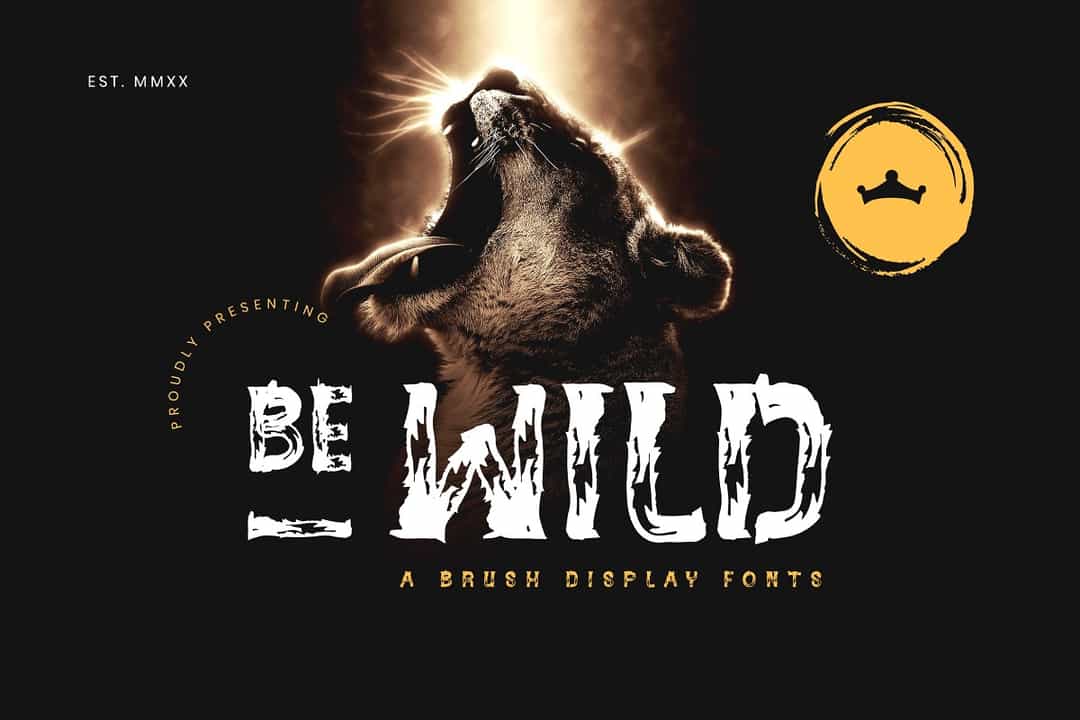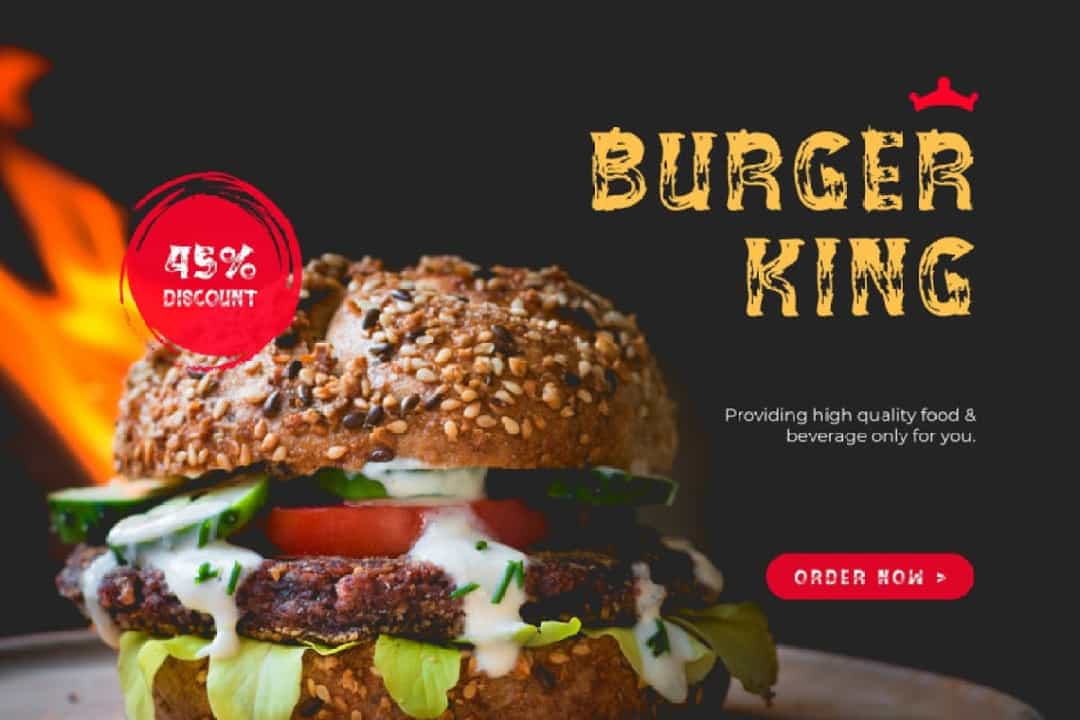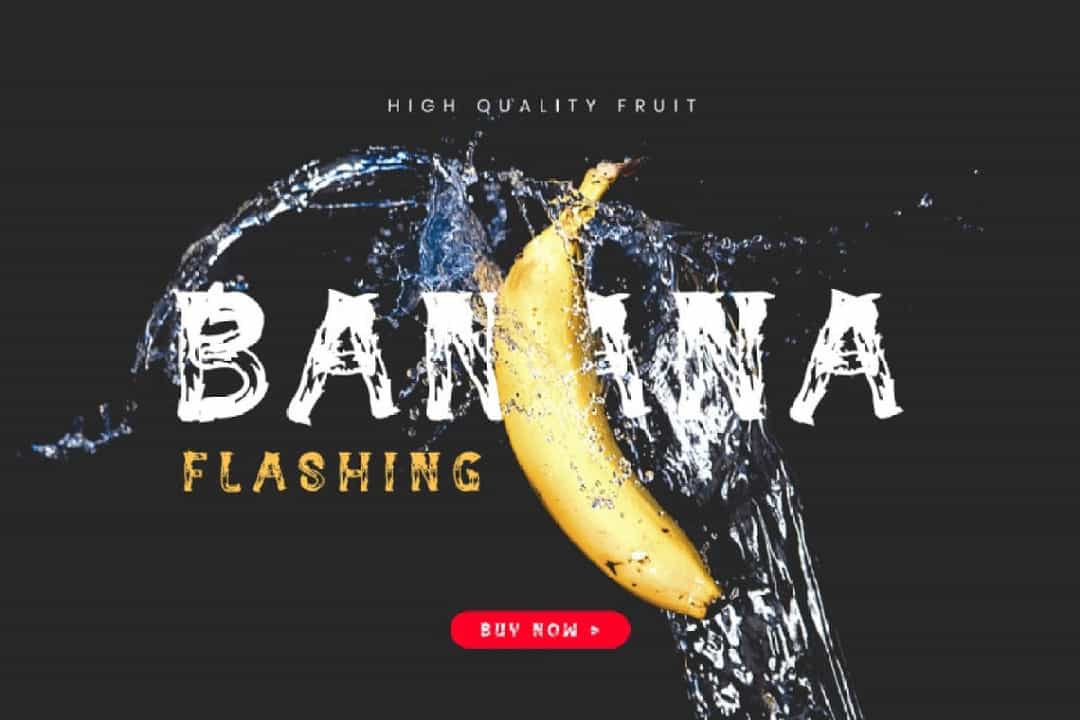
BE-WILD is an urban-friendly brush font that is bursting with energy, the BE-WILD font perfect for designs, apparel, T-shirt, Hoodie, quotes packaging for products, or anything that requires a speedy boost of typographical impact. Be careful with the swift brushwork and the specifics.